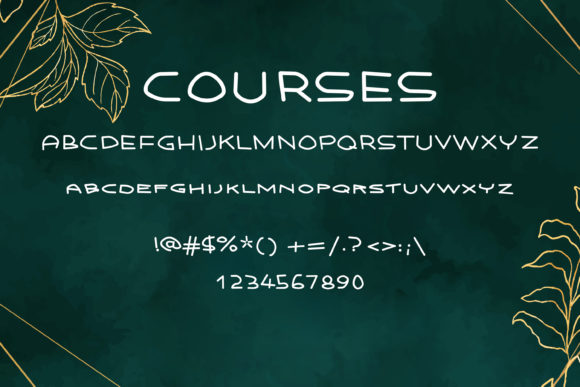
Courses Font: Elevate Your Designs with a Futuristic Twist
Are you tired of using the same old fonts in your designs? Do you want to add a touch of futurism and uniqueness to your projects? Look no further than Courses Font, an interesting and unique display font that’s sure to take your designs to the next level. In this article, we’ll explore the features and benefits of Courses Font, and how you can use it to bring your futuristic ideas to life.
What is Courses Font?
Courses Font is a display font that’s designed to add a fun and futuristic touch to your designs. With its unique and interesting shape, this font is perfect for designers and crafters who want to create eye-catching and attention-grabbing projects. Whether you’re working on a logo, brochure, or website, Courses Font is sure to make your design stand out from the crowd.
Key Features of Courses Font
- Unique and Futuristic Design: Courses Font has a one-of-a-kind design that’s sure to give your projects a futuristic twist.
- Easily Customizable: Courses Font is easy to customize, allowing you to adjust the font size, color, and style to fit your design needs.
How to Use Courses Font in Your Designs
Using Courses Font in your designs is easy. Here are a few tips to get you started:
- Pair it with a Simple Font: Pair Courses Font with a simple font to create a striking contrast and add visual interest to your design.
- Use it for Headings and Titles: Use Courses Font for headings and titles to add a touch of futurism and make your design stand out.
- Experiment with Colors and Textures: Experiment with different colors and textures to add depth and interest to your design.
Benefits of Using Courses Font
There are many benefits to using Courses Font in your designs. Here are a few:
- Adds a Unique Touch: Courses Font adds a unique and futuristic touch to your designs, setting them apart from the crowd.
- Increases Visual Interest: This font increases visual interest and engagement, making your design more attention-grabbing and memorable.
- Versatile and Customizable: Courses Font is versatile and customizable, making it easy to use in a variety of design projects.
Who Can Benefit from Courses Font?
Courses Font is perfect for a variety of designers and crafters, including:
- Graphic Designers: Graphic designers can use Courses Font to add a unique touch to their designs and create eye-catching projects.
- UI/UX Designers: UI/UX designers can use this font to create futuristic and user-friendly interfaces.
- Crafters and Makers: Crafters and makers can use Courses Font to add a touch of futurism to their handmade projects and products.